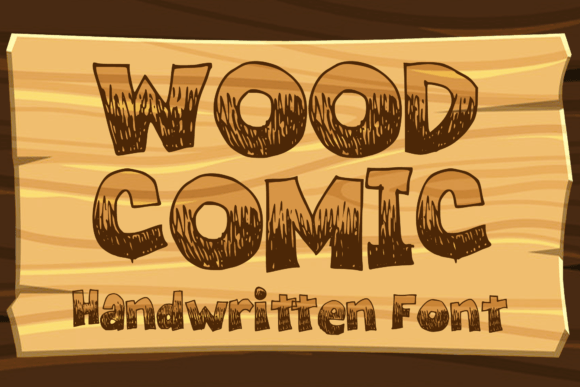
Journey into the realm of captivating typography with Wood Comic Font, a playful grunge display font that will ignite your creativity like never before. Unleash your artistic potential as you explore the boundless possibilities this font offers, transforming your designs into visually stunning masterpieces.
Indulge in the playful charm of Wood Comic Font, a font that effortlessly adds a touch of whimsy and uniqueness to your projects. With its expressive strokes and charming imperfections, this font breathes life into your words, making them leap off the page and dance before your eyes.
Dive into a world of endless possibilities with Wood Comic Font. Its versatility knows no bounds, seamlessly adapting to a myriad of design endeavors. Whether you're crafting eye-catching t-shirts, designing captivating book covers, or creating enchanting greeting cards, this font will elevate your creations to new heights.
Embrace the power of Wood Comic Font and let your imagination run wild. Its distinct character adds a touch of personality to every project, making it the perfect choice for those seeking to make a statement.